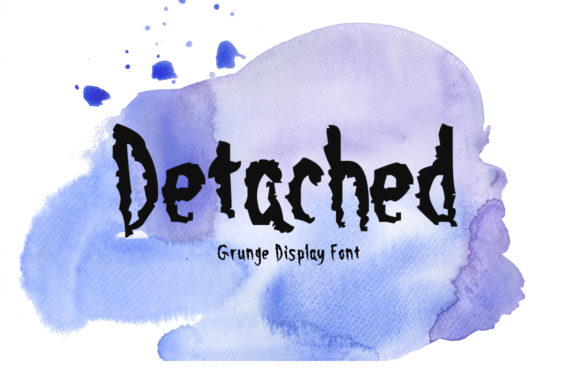
Embark on a Typographic Odyssey with Detached Font
In a world where conformity reigns supreme, Detached Font emerges as a beacon of individuality, a font that breaks free from the mundane and invites you to embrace the extraordinary. Crafted with meticulous attention to detail by the visionary minds at Nuovo Tocco, Detached is not just a collection of letters; it's an embodiment of creativity, a testament to the transformative power of typography.
Unleash Your Inner Artist
With its playful curves and mischievous personality, Detached Font is a font that speaks to your inner child, inspiring you to let your imagination run wild. Whether you're a seasoned designer or just starting your creative journey, Detached will ignite your passion and help you create designs that captivate and enchant.
Make a Statement with Every Word
From bold headlines that demand attention to delicate body text that whispers elegance, Detached Font effortlessly commands attention. Its unique character adds a touch of intrigue to any project, making your words leap off the page and dance before the eyes of your readers.
A Font for All Occasions
With its versatile nature, Detached Font seamlessly adapts to a myriad of design projects. Whether you're creating logos, posters, flyers, social media graphics, or website designs, Detached will elevate your work to new heights. Its ability to effortlessly blend with other fonts makes it the perfect choice for projects that require a harmonious interplay of typefaces.
A Touch of Nostalgia with a Modern Twist
Detached Font draws inspiration from the charm of yesteryear, capturing the essence of vintage typography while infusing it with a contemporary flair. Its nostalgic overtones evoke a sense of familiarity and warmth, while its modern sensibilities keep it relevant and captivating.
Experience the Detached Difference
Detached Font is more than just a font; it's an experience that will transform your creative endeavors. Its ability to evoke emotions, convey messages, and create lasting impressions is unparalleled. Join the ranks of those who have embraced Detached and witnessed the magic it brings to their designs.